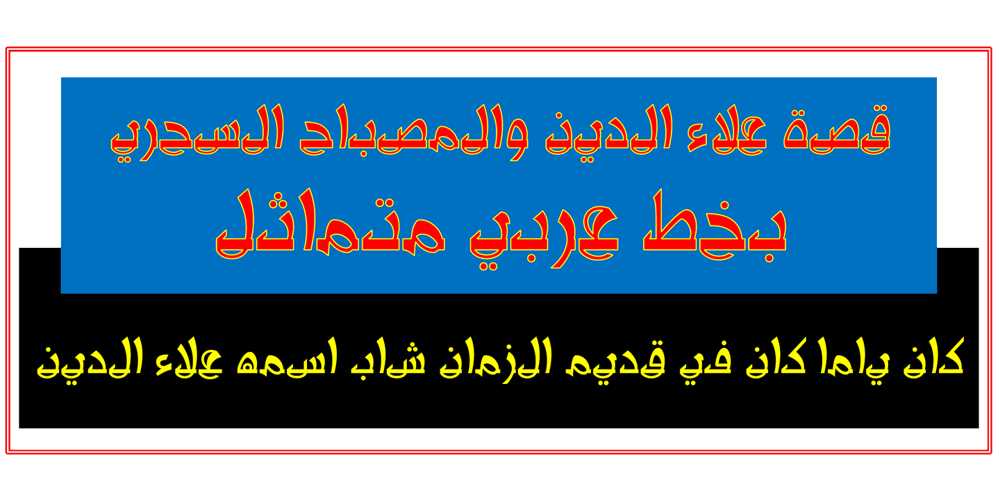
Arabetics Aladdin
Arabetics Aladdin font
Arabetics Aladdin Font Family was designed by Saad D. Abulhab and published by Arabetics. Arabetics Aladdin contains 4 styles and family package options. Arabetics Aladdin is a monoshape font family with a fixed single shape per each Arabic Unicode character. Glyphs are designed to incorporate the traditional Arabetic visual characteristics found in all four varying shapes, isolated, initial, medial, and final, for each letter. The overall design also emphasizes the line-like (khat) horizontal look and feel of the Arabetic scripts without sacrificing legibility. This font family supports all Arabetic scripts covered by Unicode 6.1, and the latest Arabic Supplement and Extended-A Unicode blocks, including support for Quranic texts. It includes two weights: regular and bold, each of which has normal and left-slanted (Italic) versions. The design of this font family follows the Arabetics Mutamathil style design principles utilizing varying x-heights and no glyph substitutions. The Mutamathil type style was introduced by the designer more than 18 years ago. The Arabetics Aladdin font family includes all required Lam-Alif ligatures in addition to all soft vowel diacritics (harakat), which are selectively positioned with most of them appearing on similar high and low levels—top left corner—to clearly distinguish them from the letters. The Tatweel or Kashida lengthening character is a zero-width glyph.